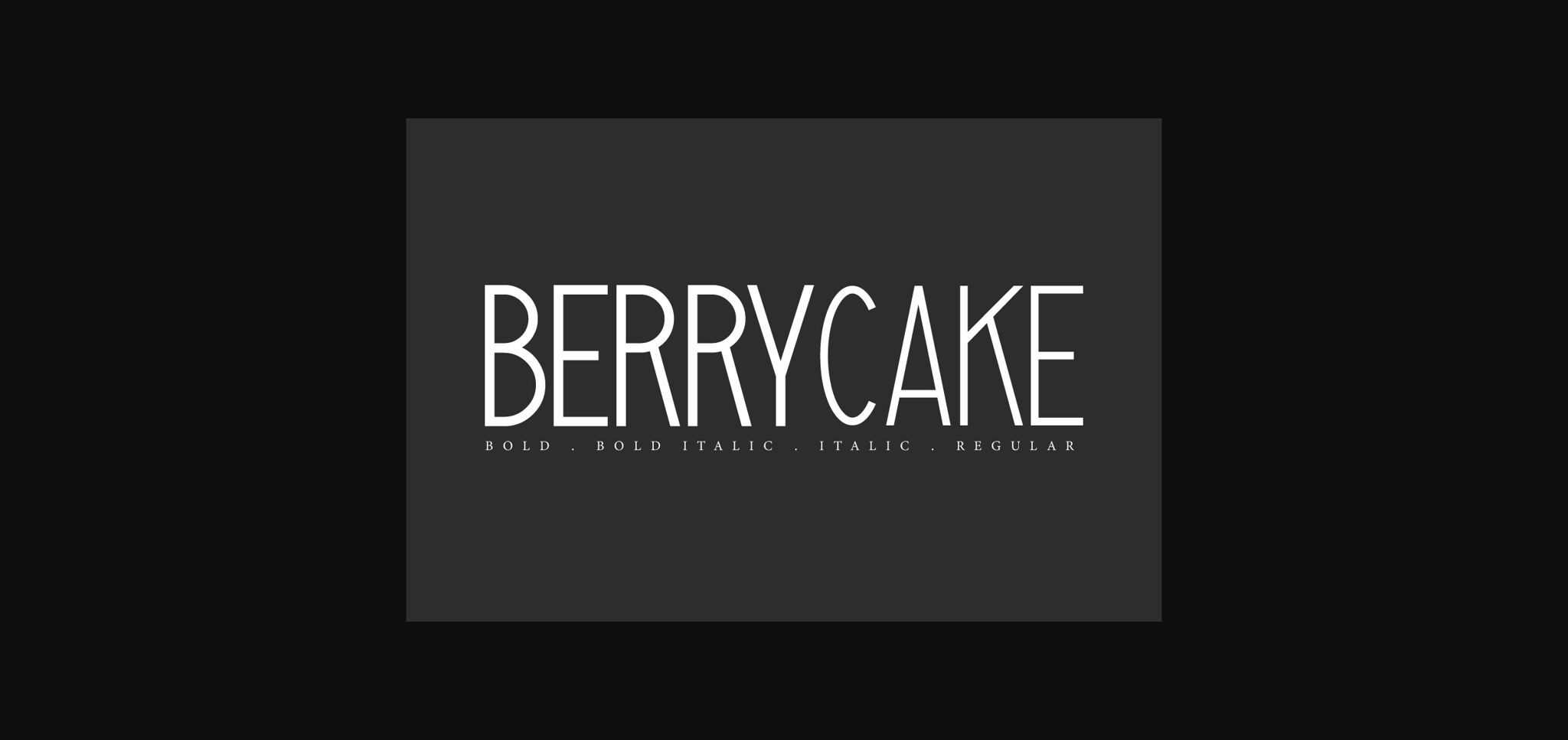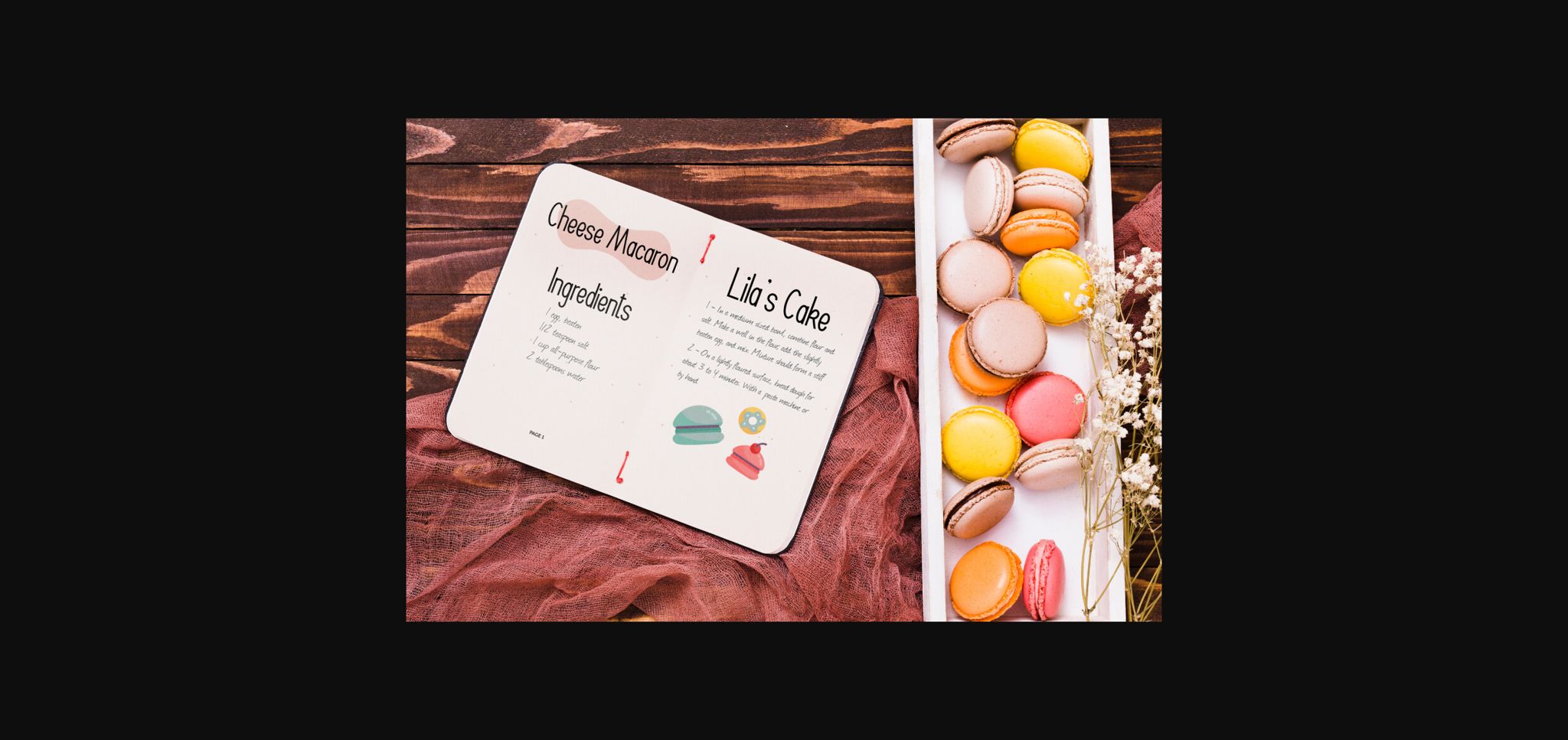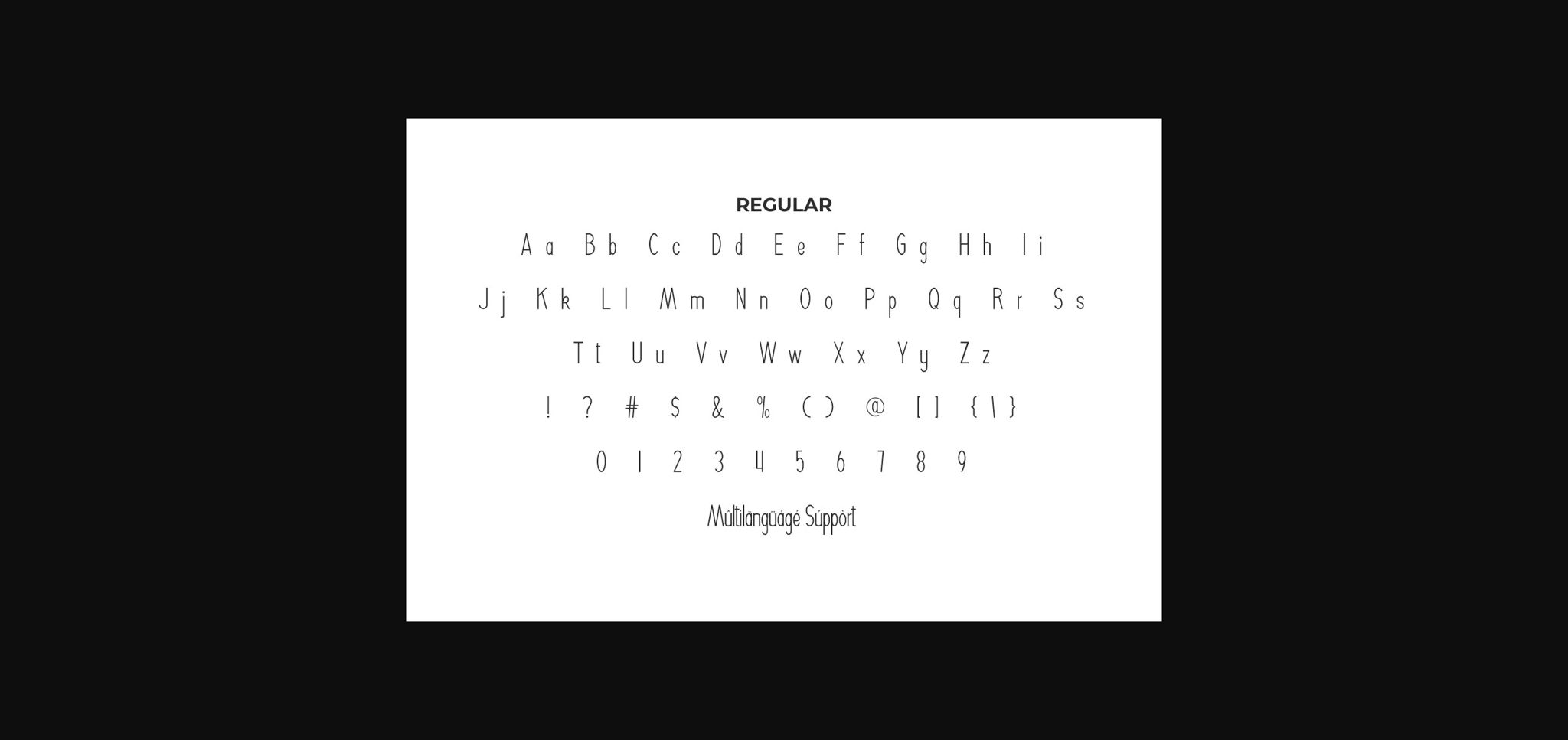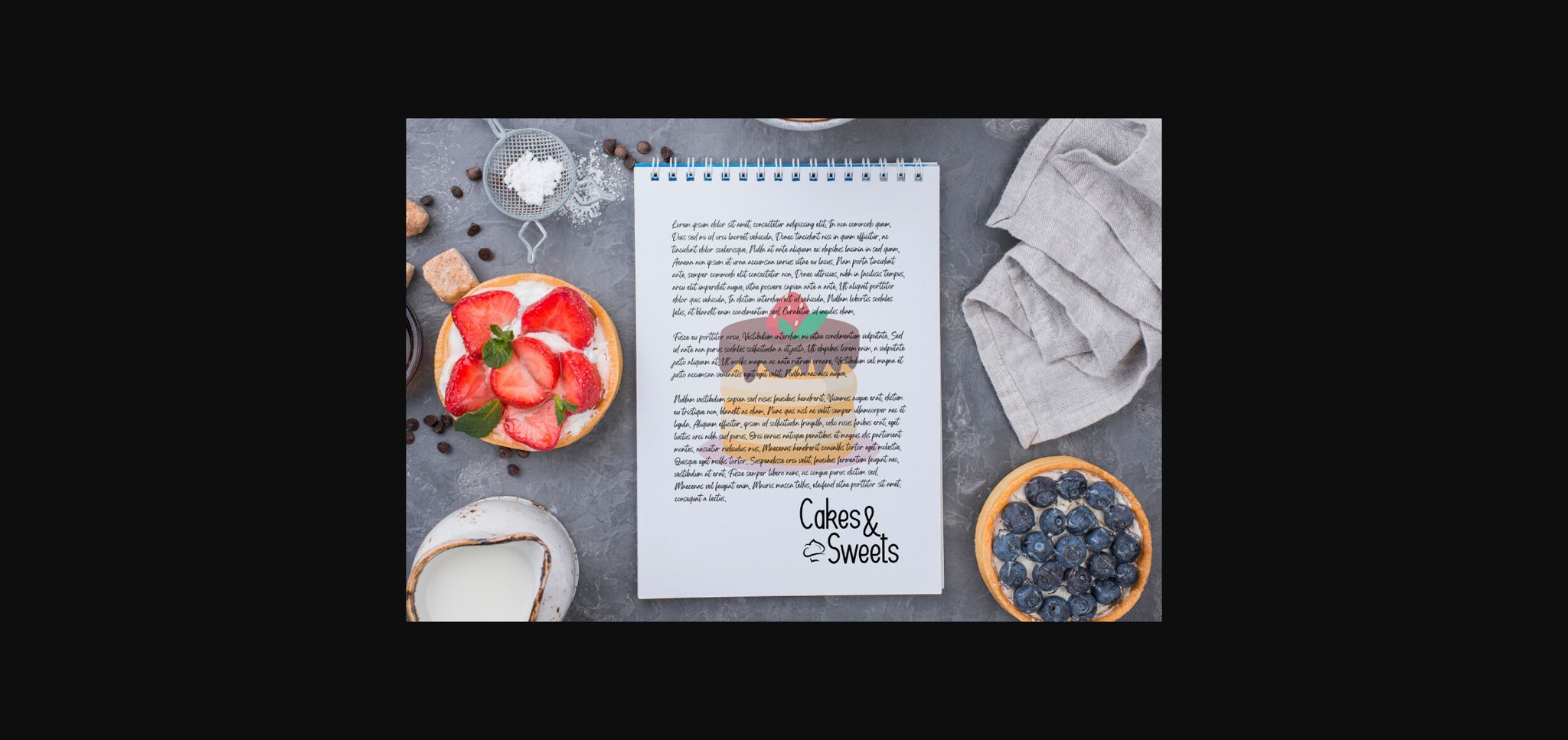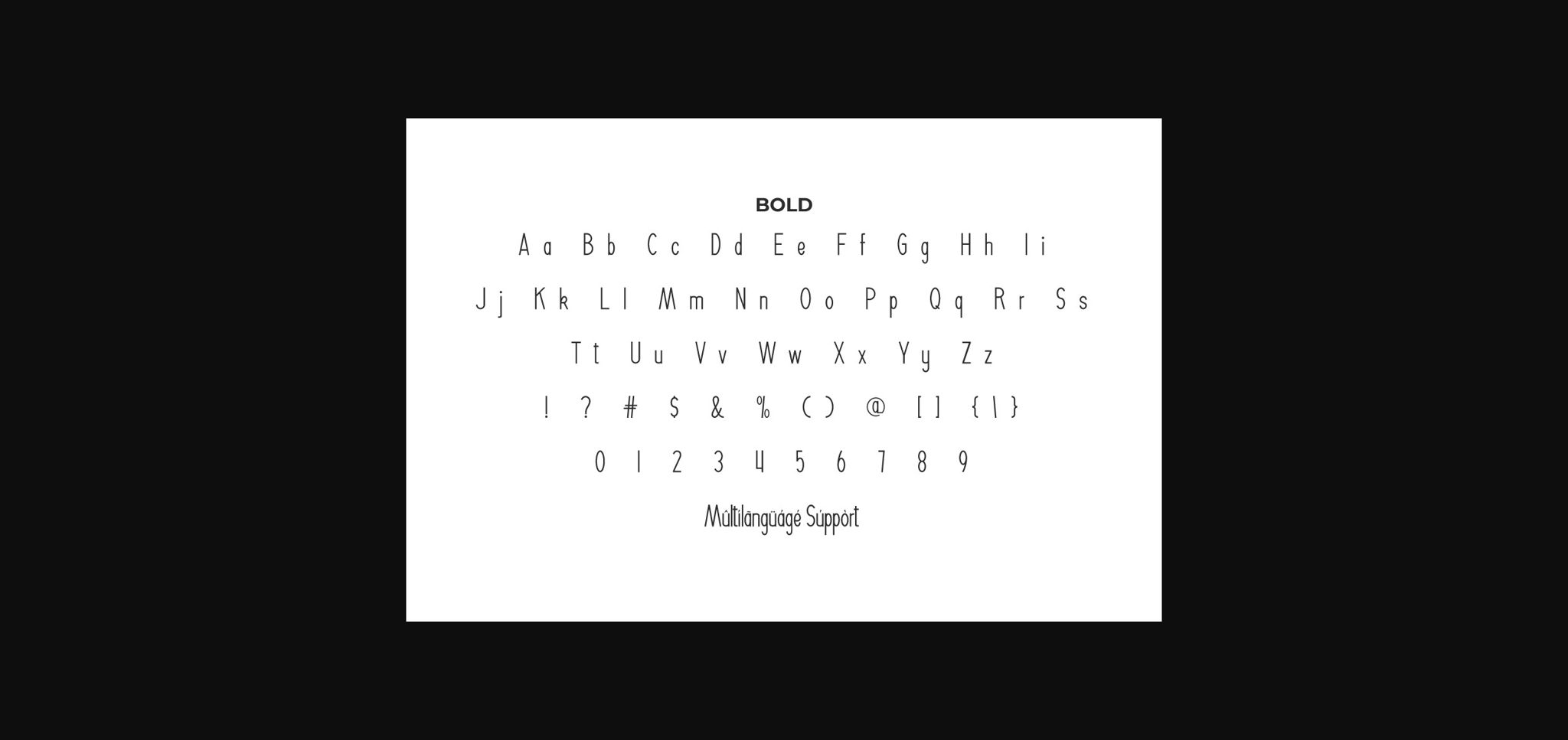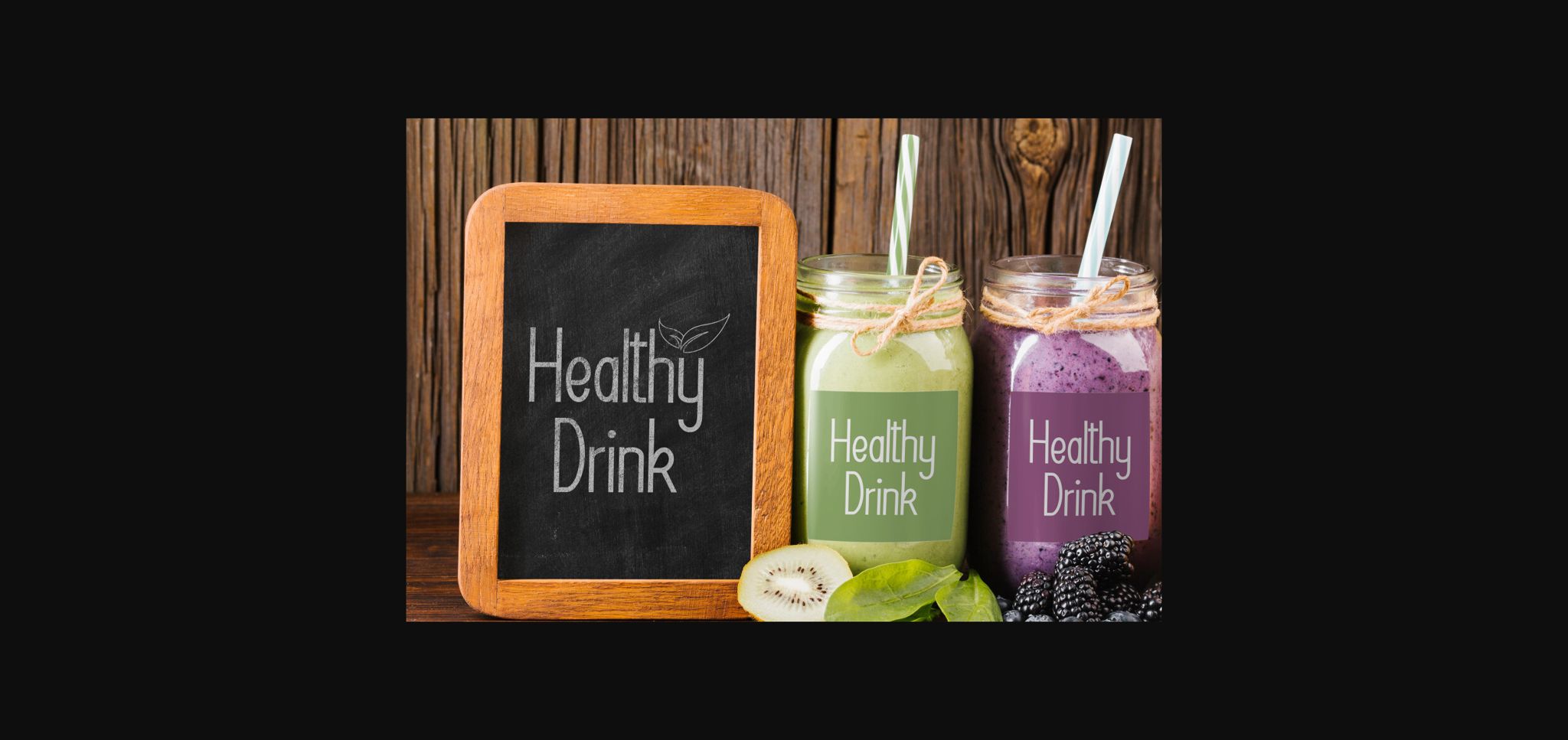
About Berrycake Font
Berrycake Font is a casual yet minimalist sans display font. It will be suitable for many industries, such as bakery, café, fashion, healthy drink, pastry shop, photography, printing, restaurant, etc. This font has four different styles, named Regular, Bold, Italic, and Bold Italic, which will give your designs a modern look.